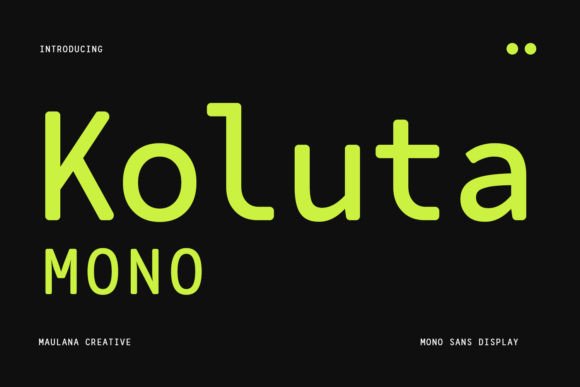
Embrace the allure of Koluta, a captivating sans serif font family that will leave you spellbound. Its bold strokes and playful characters dance across the screen, inviting you to explore a world of creativity. With ligatures and alternates at your fingertips, unleash your imagination and craft mesmerizing designs that captivate your audience.
Koluta's multilingual prowess, supporting over 100 languages, makes it a versatile companion for your global projects. Effortlessly create logos, social media posts, movie titles, book covers, and more, knowing that your message will resonate across borders.
Step into the realm of visual storytelling with Koluta. Its charm extends to both short and long texts, adding a touch of elegance to letters, reports, and any written content that demands attention. Pair Koluta with scripts or serifs for a harmonious blend of styles, creating designs that exude sophistication and creativity.
Make Koluta your font of choice and witness the transformation of your creative endeavors. Its versatility and captivating presence will elevate your designs to new heights, leaving a lasting impression on your audience.